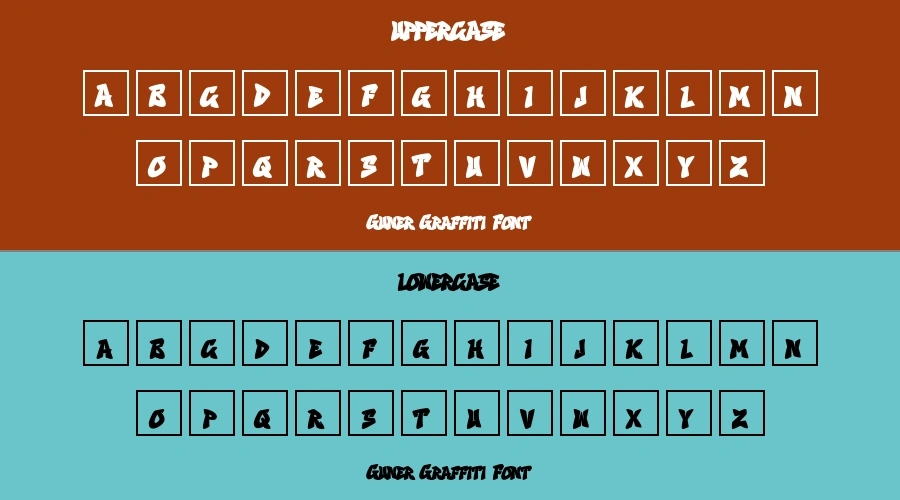
About Guner Graffiti Font
Designed with precision, Guner Graffiti Font merges ball terminals with exceptional clarity in every character. This versatility makes it particularly effective for merchandise graphics, where scalability and design heritage directly impact communication quality. Each letterform demonstrates meticulous craftsmanship.
Technical excellence shines through elements like humanist proportions and ordinals, enhancing typographic versatility. In compliance seals settings, Guner Graffiti Font proves its worth through superior impact retention. The thoughtful execution of terminal style and market positioning ensures professional results.